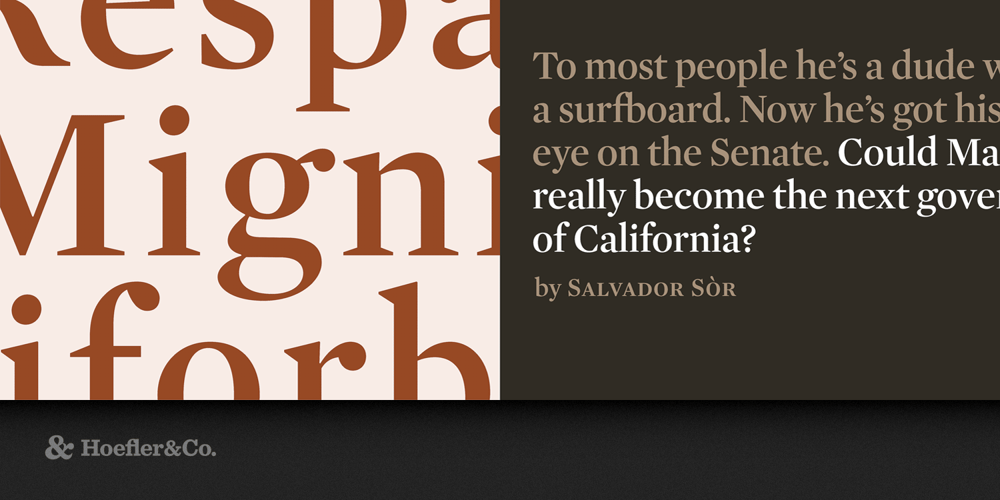
Mercury Display
Mercury Display font
Mercury Display Font Family was designed by Jonathan Hoefler and published by Hoefler & Co.. Mercury Display contains 6 styles and family package options. A succinct family of display faces, Mercury answers the call for a contemporary serif that’s smart, quick, and articulate. The Mercury typeface was designed by Jonathan Hoefler in 1996. A loose adaptation of the sparkling baroque typefaces of Johann Michael Fleischman (1701-1768), Mercury was an inflection point in Hoefler’s typefaces, in which explicit historical revivals pivoted to more expressive interpretations inspired by historical themes. First appearing in the pages of Esquire in 1997, Mercury is in the permanent collection of the Museum of Modern Art in New York. From the desk of the designer: The signature typeface we designed for Esquire magazine began its life as a would-be historical revival, but developed into one of our most avowedly modern type families. During its initial design exploration, Mercury was envisioned as a revival of the work of Johann Michael Fleischman (1701-1768), a German punchcutter denizened in Amsterdam, whose unrevived typefaces had so expressively captured the drama and tension of the Dutch baroque. As Mercury’s design developed, it began to draw upon the work of other contemporary punchcutters: both the sparkling display faces of Jacques-François Rosart (1714-1774), and the progressive italics of Pierre Simon Fournier (1712-1768), were inspirations in Mercury’s evolving design. The more time we spent with these historical models, the more it became clear that none of them truly possessed the qualities that were so exciting about the genre as a whole. As a collection, these faces were vibrant: tightly wound, yet quiet, using the tension between introverted and extroverted gestures — and between black letterforms and their white counters — to create a sort of “excited calm” on the page. It was these qualities that we hoped to capture in Mercury, so ultimately we chose to ignore the dictates of historical form and follow a more personal and expressive path instead. Mercury debuted in the pages of Esquire in 1996, and though it had been designed to serve merely as an everyday headline font, it quickly became an indispensable part of the magazine’s painterly editorial openers. The sharp corners and tightly coiled curves that made Mercury lively at headline sizes made it irresistible in outsize typographic collages, and hinted at what we thought could potentially be a vibrant and hard-working text face as well. Rather than compromise the design’s crisp features, we explored these ideas separately, in what would become one of our most substantial type families: the high-performance Mercury Text collection, designed to thrive under all kinds of adverse conditions.